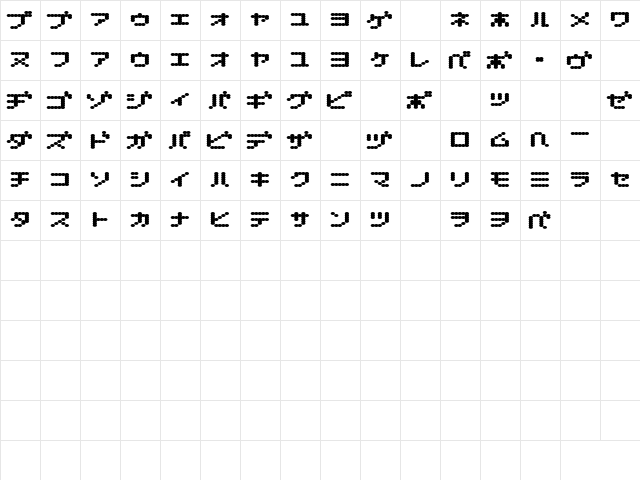
D3 Electronism Katakana Regular
Design Context for D3 Electronism Katakana Typeface
D3 Electronism Katakana offers clean, dependable letterforms without strong stylistic allegiance, making it a practical choice for designers who need flexibility.
Pro Tip: Use D3 Electronism Katakana in both headline and body roles to test its range before committing to a single application.